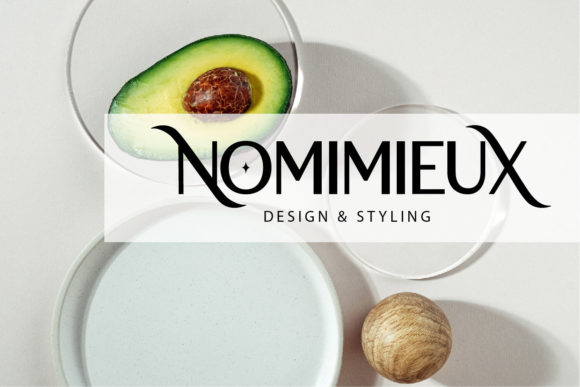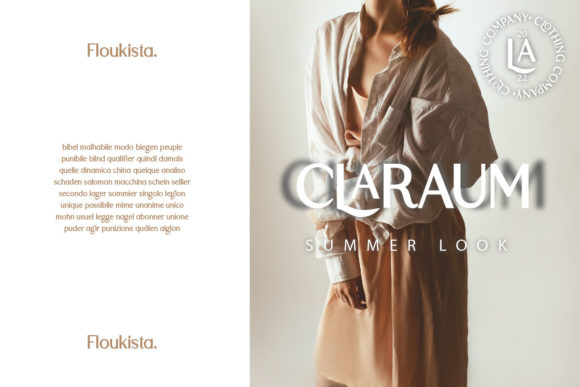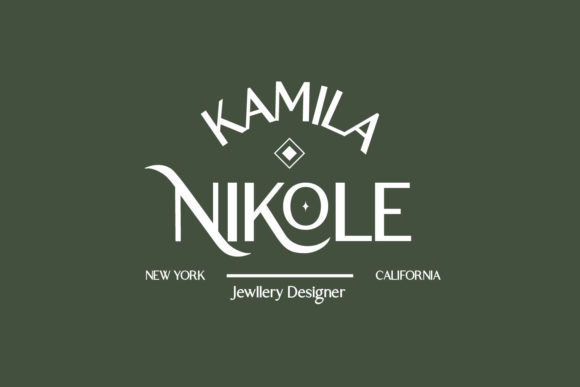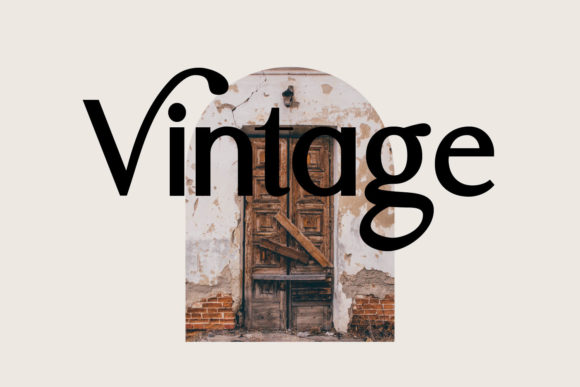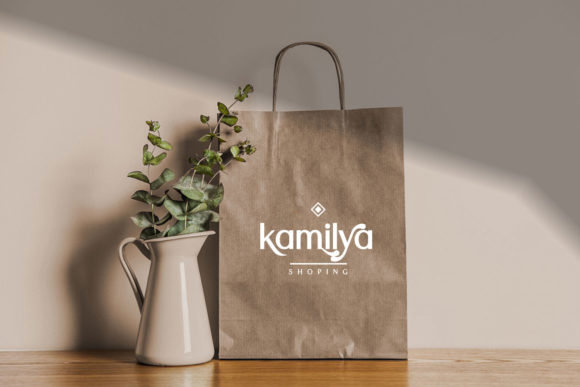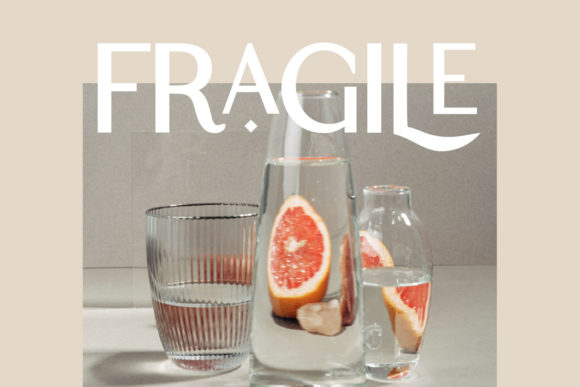
Introducing Floukista Font: The Ultimate Modern Sans Serif for Designers and Crafters
Are you on the hunt for a font that embodies modernity, elegance, and versatility? Look no further than Floukista Font, a stunning sans serif typeface that is taking the design world by storm. With its minimalist aesthetic, beautiful ligatures, and extensive range of special alternative glyphs, ornaments, and multilingual support, Floukista is the perfect choice for designers and crafters looking to elevate their projects.
What Makes Floukista Font So Special?
Floukista Font is a masterclass in modern design, boasting a clean and minimalist aesthetic that works beautifully in both large and small sizes. Its elegant sans serif design makes it an ideal choice for a wide range of applications, from branding projects and logo design to clothing branding, product packaging, and magazine headers. But what really sets Floukista apart is its impressive feature set, which includes:
- Beautiful Ligatures: Floukista features stunning ligatures that add a touch of sophistication to any design.
- Tons of Special Alternative Glyphs: With a vast range of alternative glyphs, you can add unique flair to your designs and make them stand out.
- Ornaments: Add a touch of elegance to your designs with Floukista’s exquisite ornaments.
- Multilingual Support: Floukista supports multiple languages, making it a great choice for global brands and designers.
Floukista Font is a versatile typeface that is perfect for designers and crafters looking to create stunning visual content. Whether you’re working on a branding project, designing a logo, or creating product packaging, Floukista has got you covered. Its elegant design and extensive feature set make it an ideal choice for:
- Branding Projects: Create a lasting impression with Floukista’s modern and elegant design.
- Logo Design: Make your logo stand out with Floukista’s unique ligatures and alternative glyphs.
- Clothing Branding: Add a touch of sophistication to your clothing brand with Floukista’s elegant design.
- Product Packaging: Make your product packaging stand out with Floukista’s beautiful ornaments and ligatures.
- Magazine Headers: Add a touch of elegance to your magazine headers with Floukista’s stunning design.
Floukista Font is PUA encoded, which means you can access all of the glyphs and swashes with ease. This makes it simple to get the most out of the font and create stunning designs without any hassle.
Why Choose Floukista Font?
With so many fonts on the market, why choose Floukista? Here are just a few reasons why Floukista stands out from the crowd:
- Unique Design: Floukista’s modern and elegant design makes it a standout choice for designers and crafters.
- Extensive Feature Set: With its beautiful ligatures, tons of special alternative glyphs, ornaments, and multilingual support, Floukista has everything you need to create stunning designs.
- Versatility: Floukista works beautifully in both large and small sizes, making it a versatile choice for a wide range of applications.
- Easy to Use: With PUA encoding, accessing all of the glyphs and swashes is a breeze.
Floukista Font is a game-changer for designers and crafters looking to elevate their projects. With its modern and elegant design, extensive feature set, and versatility, Floukista is the perfect choice for anyone looking to create stunning visual content. Whether you’re working on a branding project, designing a logo, or creating product packaging, Floukista has got you covered. So why wait? Download Floukista Font today and take your designs to the next level!